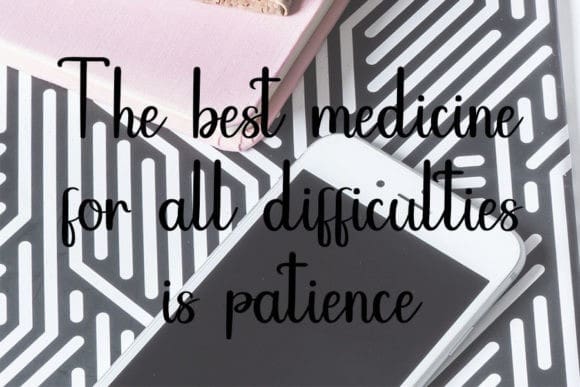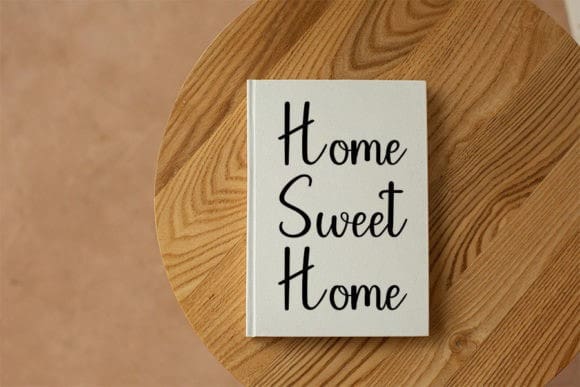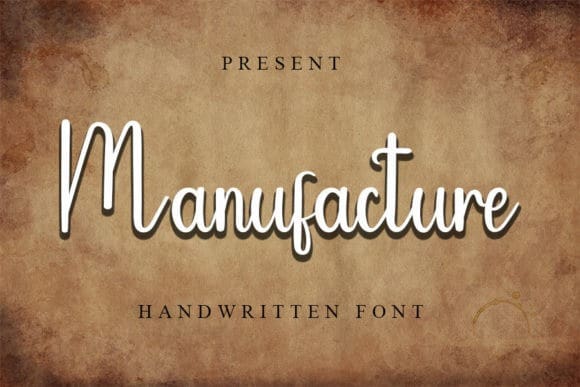
Manufacture Script Font
Manufacture Script Font is a slim and delicate handwritten font. Dainty and joyful, this font will be ideal for writing wedding invitations, cards, or any other design that may need a romantic, personalized touch!